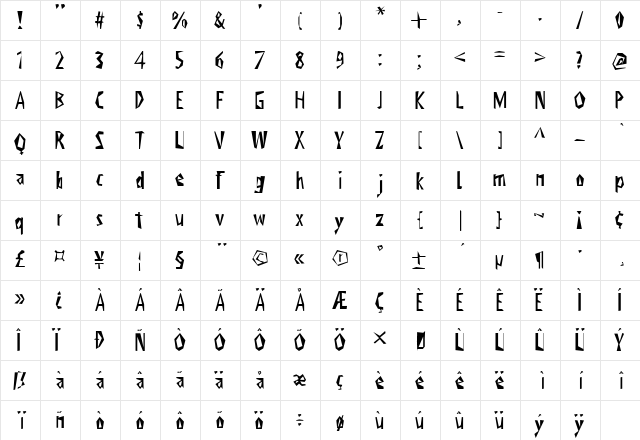
Viktors Littl Creepy Horror Regular
Design Context for Viktors Littl Creepy Horror Typeface
Viktors Littl Creepy Horror carries an unsettling edge — its distorted letterforms are built to unsettle, perfectly suited to horror, Halloween, and dark creative work.
Perfect for anything that needs to unsettle — game titles, horror branding, and macabre invitations.
Font Pairing: Pair with a clean neutral sans-serif for body copy to let Viktors Littl Creepy Horror's character lead without overwhelming the composition.
Pro Tip: Use Viktors Littl Creepy Horror at larger display sizes for maximum impact. Consider generous tracking to let the disturbing character of each letterform breathe.